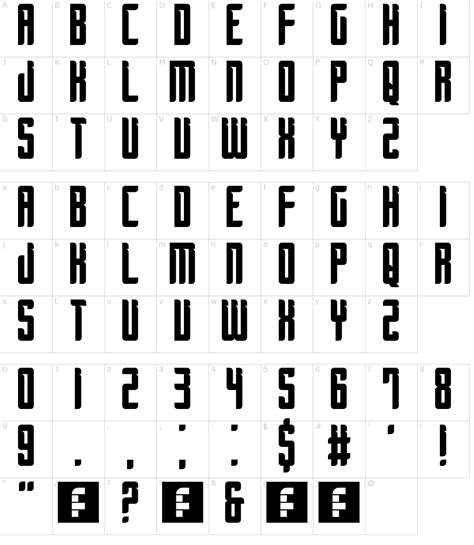
OSCSoccer Jersey Font Styles Guide
Unveiling the Ultimate Guide to OSCSoccer Jersey Font Styles
What’s up, soccer fanatics! Ever stared at your favorite team’s jersey and wondered about that killer font they use? Or maybe you’re looking to design your own OSCSoccer jersey and need some serious font inspo? Well, you’ve landed in the right spot, guys! Today, we’re diving deep into the awesome world of OSCSoccer jersey font styles . We’re talking about the typography that makes your club’s identity pop, the numbers that scream victory, and the names that fans chant. Getting the font right is crucial; it’s not just about readability, it’s about capturing the spirit and prestige of your team. Think about it – iconic teams have iconic fonts. They become part of the visual language of the sport, instantly recognizable and loaded with history. Whether it’s a classic, bold look or something sleek and modern, the font choice speaks volumes before a ball is even kicked. So, buckle up as we explore the different types of fonts, what makes them tick, and how you can use them to make your OSCSoccer jersey the stuff of legends. We’ll cover everything from the nitty-gritty details of font design to practical tips for choosing the perfect one for your squad. Let’s get this game started!
The Anatomy of a Championship Font: What Makes OSCSoccer Jersey Fonts Stand Out?
Alright, let’s break down what really makes a soccer jersey font work , especially for OSCSoccer. It’s not just about picking something that looks cool, though that’s a big part of it, right? We’re talking about fonts that need to be super readable from a distance – think stadium stands or a TV screen. This means clean lines, good spacing, and avoiding anything too ornate that might get lost. For OSCSoccer, we often see a blend of tradition and modernity. Many clubs want a font that feels classic and established, echoing their history, while also looking sharp and contemporary for the modern game. This is where boldness and clarity come into play. A strong, legible font ensures that player names and numbers are instantly recognizable, which is vital for fans, commentators, and even the players themselves during the heat of the match. Think about the classic block numbers that have graced jerseys for decades – they’re simple, powerful, and universally understood. Then you have more stylized fonts that might incorporate unique curves or angles, reflecting a club’s specific branding or nickname. The key is balance. You don’t want a font so wild that it distracts from the jersey’s overall design or becomes illegible. It needs to complement the colors, the crest, and the overall aesthetic of the kit. Material also plays a role; the font needs to translate well onto different fabrics and withstand the rigors of the game. Whether it’s sublimated directly into the fabric or applied as a vinyl or heat-pressed layer, the font’s structure needs to hold up. So, when we talk about the anatomy of a championship font, we’re looking at a design that is resilient, recognizable, and representative of the team’s identity. It’s the silent hero on the back of every jersey, and its importance cannot be overstated. It’s the visual signature that fans connect with, the identifier that makes every player unique on the field, and the element that completes the professional look of any OSCSoccer team.
So, you’re looking for that perfect font for your OSCSoccer jersey? Awesome! Let’s dive into the most popular types you’ll see out there. Understanding these categories will help you narrow down your search and find something that truly fits your team’s vibe. First up, we have the Classic Block Fonts . These are your timeless, no-nonsense choices. Think bold, thick lines, often with slightly rounded corners. They’re super readable, exude a sense of tradition and strength, and have been used by countless clubs for ages. They’re the reliable workhorses of jersey typography, always a safe and strong bet. If you want your team to look established and powerful, a classic block is the way to go. Next, let’s talk about Modern Sans-Serif Fonts . These are fonts without the little ‘feet’ (serifs) at the ends of the strokes. They tend to be cleaner, sleeker, and more minimalist. Many contemporary OSCSoccer clubs opt for these to give their kits a cutting-edge feel. They can range from very geometric and sharp to slightly softer and more humanist. If your club has a modern brand identity or you’re aiming for a futuristic look, a modern sans-serif is a fantastic option. They offer excellent readability and a sophisticated aesthetic. Then there are the Stenciled Fonts . These guys have a distinctive look, featuring gaps or breaks in the strokes, mimicking the style of traditional stencils. They add a rugged, utilitarian, or sometimes even a slightly retro feel to a jersey. Many clubs use stenciled fonts to evoke a sense of grit and determination, perfect for teams known for their hard-working style on the pitch. They have a unique visual flair that really stands out. We also see Custom & Stylized Fonts . These are unique designs created specifically for a club or a league. They might incorporate unique ligatures, custom character shapes, or stylistic flourishes that tie directly into the team’s crest, mascot, or history. These are brilliant for creating a truly one-of-a-kind look that’s instantly associated with the club. While they can be more complex, a well-executed custom font can be incredibly impactful and memorable. Finally, let’s not forget Italicized Versions of these styles. Often, clubs will use italicized versions of their primary font for player names. This adds a dynamic feel, suggesting speed and movement, which is perfect for the fast-paced nature of soccer. So, whether you’re leaning towards the tried-and-true or aiming for something boldly original, there’s a font category out there that will perfectly capture the essence of your OSCSoccer team. Remember, the best choice depends on your club’s identity, your jersey’s design, and the overall message you want to send.
Choosing the Perfect OSCSoccer Font: Tips for Teams and Designers
Alright, so you’ve got a handle on the different types of fonts out there for your OSCSoccer jerseys. Now comes the fun part: picking the perfect one! Whether you’re a team manager, a designer, or just a super-fan wanting to create a custom kit, choosing the right font is a big deal. Let’s run through some key tips to make sure you nail it. First off, Prioritize Readability Above All Else . Seriously, guys, this is non-negotiable. Imagine a blurry number or a name you can’t decipher from the stands or on TV. It just kills the professional vibe. Ensure the font you choose is clear, distinct, and easy to read from a distance. Test it out! Print it large, view it from across the room. If it’s hard to read, it’s not the one. Secondly, Consider Your Club’s Identity and History . Is your OSCSoccer club a historic institution with a rich legacy? A classic, bold font might be the best fit. Are you a new, dynamic team aiming for a modern, edgy image? Perhaps a sleek sans-serif or a unique custom font would work better. The font should reflect who you are as a team. Don’t pick a super-modern font if your club is all about tradition, and vice-versa. Think about your club’s colors, crest, and overall brand. Does the font complement these elements? Think About Versatility . Your font will appear on jerseys, training gear, scarves, websites, and more. Choose a font that looks good across various applications and sizes. A font that’s too complex might not scale down well for smaller items. Test on the Actual Jersey Material . Fonts can look different when printed or applied to fabric compared to on a screen. Get a sample print or mock-up on the jersey material to see how it truly appears. Some fonts might stretch or distort in ways you don’t expect. Legality and Licensing . This is super important, especially if you’re designing for a club or selling merchandise. Make sure you have the proper licenses for any commercial font you use. Many free fonts have restrictions. Opting for a font specifically designed for sports applications or getting a commercial license is often the safest bet. If budget allows, Consider a Custom Font . While it’s an investment, a custom font designed exclusively for your OSCSoccer club is the ultimate way to create a unique and powerful brand identity. It ensures no other team will have it and it can be perfectly tailored to your needs. Lastly, Get Feedback . Show your top font choices to other team members, coaches, or loyal fans. A fresh perspective can be invaluable. What looks good to you might not resonate as well with others. So, by keeping these tips in mind – readability, identity, versatility, testing, licensing, and feedback – you’ll be well on your way to selecting an OSCSoccer jersey font that’s a true game-changer!
The world of sports, and especially soccer, is always evolving, and the typography on our beloved OSCSoccer jerseys is no exception! Designers and clubs are constantly looking for ways to innovate and stand out. Let’s chat about some of the cool trends and innovations happening in jersey fonts right now, guys. One of the biggest trends we’re seeing is the move towards more geometric and minimalist sans-serif fonts . These fonts often have very clean lines, consistent stroke widths, and a generally understated elegance. They work incredibly well with modern jersey designs that often feature clean graphics and bold color blocking. They give off a very professional, sophisticated, and forward-thinking vibe, which many clubs are keen to project. Think sharp, precise, and undeniably contemporary. Another exciting trend is the incorporation of subtle, unique details or custom elements within more traditional font structures. Instead of a completely custom font (which can be pricey!), designers might tweak a standard font slightly – perhaps adding a unique flourish to a specific letter, creating a custom ligature, or designing a unique number set that subtly references the club’s history or mascot. This offers a way to achieve a personalized look without the full cost of a bespoke typeface. It’s all about adding that special touch that makes the jersey feel unique to the club. We’re also seeing a lot of clubs playing with gradient effects and metallic finishes on their fonts, especially for special edition kits. Imagine numbers that shimmer or names that have a subtle color shift. While this might not be practical for every single match jersey due to regulations or durability concerns, it’s a fantastic way to create eye-catching designs for third kits or celebratory merchandise. It adds a real ‘wow’ factor! Furthermore, the rise of dynamic and italicized variants continues. The sense of motion and speed is crucial in soccer, and italicized fonts naturally convey this. We see more clubs opting for slightly italicized versions of their main fonts, or using distinct italic styles for names to create a sense of energy and pace on the pitch. Lastly, let’s not forget the influence of technology and sustainability . While not strictly a ‘font style,’ the application of fonts is evolving. Direct sublimation means fonts are integrated directly into the fabric, allowing for more complex designs and vibrant colors without the bulk of traditional vinyl. There’s also a growing interest in more sustainable printing methods. So, what does this all mean for OSCSoccer jersey fonts? It means we’re likely to see even more creative, personalized, and visually dynamic typography in the future. Keep an eye out for fonts that are not just readable, but also tell a story and capture the unique spirit of each team. The game is evolving, and so are the fonts that define it!
The Psychology Behind OSCSoccer Jersey Fonts: What Your Choice Says About Your Team
Hey team managers and designers! Ever thought about the hidden messages your OSCSoccer jersey font is sending? It’s way more than just pretty letters, guys! The font you choose actually has a psychological impact on how your team is perceived. It’s like the handshake of your club’s visual identity – it sets the tone before anyone even sees you play. Let’s dive into what different font styles might be saying about your squad. Think about bold, blocky fonts . These fonts scream strength, stability, and tradition. If your OSCSoccer club is known for its defensive prowess, its long history, or its no-nonsense attitude on the field, a strong, classic font reinforces that image. It says, “We are solid, we are here to stay, and we mean business.” Fans often associate these fonts with heritage and reliability, which can foster a deep sense of loyalty. On the flip side, sleek, modern sans-serif fonts often communicate innovation, speed, and agility. If your OSCSoccer team plays a fast-paced, attacking style of game, or if your club is forward-thinking and embraces new technologies, these fonts are perfect. They suggest efficiency, sharpness, and a cutting-edge approach. They appeal to a younger demographic and signal that the club is dynamic and adaptable. What about stenciled fonts ? These often evoke a sense of grit, determination, and a rebellious spirit. If your team is the underdog, known for fighting for every ball and never giving up, a stenciled font can perfectly capture that raw, determined energy. It suggests a team that’s perhaps a bit rough around the edges but incredibly tough and resilient. It resonates with fans who appreciate hard work and a fighting mentality. Then there are custom or highly stylized fonts . These send a powerful message of uniqueness and exclusivity. When a club invests in a custom font, it signals a commitment to its brand identity and a desire to stand apart from the crowd. It says, “We are one of a kind.” This can create a strong sense of pride among players and fans alike, fostering a unique bond with the club’s specific aesthetic. Even the italicization of a font carries psychological weight. It suggests movement, speed, and dynamism – perfect for a sport where quick transitions and rapid attacks are key. It can make a team seem more energetic and aggressive on the field. So, when you’re choosing your OSCSoccer jersey font, think beyond just aesthetics. Consider the personality you want to project. Do you want to appear classic and powerful, or modern and agile? Tough and gritty, or unique and exclusive? Your font choice is a powerful tool in shaping your team’s image and connecting with your supporters on a deeper level. Choose wisely, and let your font do some of the talking for you!
How to Implement OSCSoccer Jersey Fonts: From Design to Application
Alright, we’ve talked about why fonts matter and explored different styles. Now, let’s get down to the nitty-gritty: how do you actually get these awesome OSCSoccer jersey fonts onto the kits? Whether you’re a designer working with a club or a team manager coordinating production, understanding the process is key to getting a professional finish. The journey usually starts with Font Selection and Mock-ups . You’ve picked your font (or had one custom-designed). The next step is to create realistic mock-ups. This involves placing the chosen font with player names and numbers onto a template of the actual jersey design. Use design software like Adobe Illustrator or Photoshop for this. Ensure the sizing, spacing, and placement are perfect. Consider how the font interacts with the jersey’s graphics, logos, and colors. Test different sizes for names versus numbers. This stage is crucial for client approval and for visualizing the final product. Once the design is approved, you move to File Preparation for Production . This is where things get technical. For printing methods like vinyl heat transfer or screen printing, you’ll typically need vector files (like .AI or .EPS). Vector graphics are scalable without losing quality, which is essential for crisp application. If the font is being sublimated directly into the fabric, you’ll likely provide high-resolution raster files (like .PNG or .TIFF) with a transparent background, ensuring the colors are set correctly for the printing process (usually CMYK). Ensure all fonts are outlined or converted to curves to avoid any font substitution issues if the printer doesn’t have the specific font installed. Now, let’s talk about the Application Methods . The most common methods for OSCSoccer jerseys include: 1. Vinyl Heat Transfer: This is very popular. Pre-cut vinyl letters and numbers are adhered to the jersey using a heat press. It’s durable, offers a clean finish, and comes in various colors and finishes (matte, glossy, metallic). 2. Screen Printing: Ink is pushed through a mesh screen directly onto the fabric. This is great for large quantities and offers vibrant colors, but might be less common for individual names and numbers compared to vinyl. 3. Sublimation Printing: This is increasingly common, especially for modern kits. The ink turns into a gas under heat and pressure, bonding with the fabric fibers. This allows for full-color designs, gradients, and intricate patterns integrated directly into the jersey material. The font becomes part of the fabric, so it won’t peel or crack. 4. Direct-to-Garment (DTG) Printing: Similar to inkjet printing but for textiles. It’s good for complex, full-color designs but might not be as durable as other methods for high-wear areas like numbers. Finally, Quality Control is your last checkpoint. Before the jerseys are shipped out or handed over, inspect each one carefully. Check that the names and numbers are spelled correctly, applied straight, and adhere securely. Ensure there are no stray marks, creases, or defects in the font application. Getting the implementation right ensures that your meticulously chosen OSCSoccer jersey font looks as good on the field as it does on the screen, making your team look professional and ready to compete!
Conclusion: Elevate Your Game with the Right OSCSoccer Font
So there you have it, guys! We’ve journeyed through the exciting landscape of OSCSoccer jersey font styles , exploring everything from the classic blocks that echo tradition to the sleek, modern designs that scream the future of the game. We’ve delved into why font choice is so critical – it’s not just about looking good, it’s about identity, readability, and the psychology of perception. Remember, the font on your OSCSoccer jersey is a powerful visual cue. It speaks to your team’s history, its playing style, and its overall ethos. Whether you’re a designer aiming for that perfect visual balance, a club manager looking to solidify your brand, or a player dreaming of your name on the back of a new kit, understanding these elements is key.
Choosing the right font means prioritizing clarity, reflecting your club’s unique spirit, and ensuring it works seamlessly across all applications. From the initial design mock-ups to the final application on the fabric, each step matters in creating a jersey that players and fans will be proud to wear. Don’t underestimate the impact of those numbers and letters; they are the silent heralds of your team’s performance and presence on the field.
Ultimately, the goal is to find a font that not only looks fantastic but also enhances the overall appeal and professionalism of your OSCSoccer team. So, go forth, explore the options, consider your team’s unique story, and choose a font that truly elevates your game. Make it bold, make it clear, make it yours . A great font can be the finishing touch that makes your OSCSoccer jersey truly unforgettable. Now, go make those jerseys legendary!